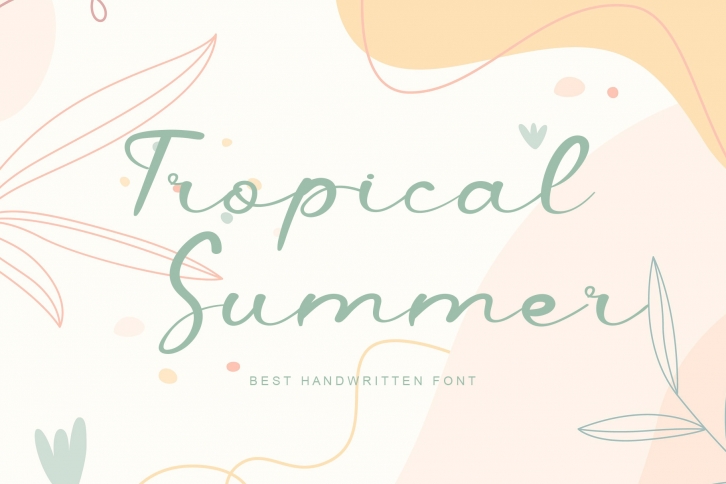
Tropical Summer is an exquisite handwritten font, masterfully designed to become a true favorite. It maintains its classy calligraphic influences while feeling contemporary and fresh.